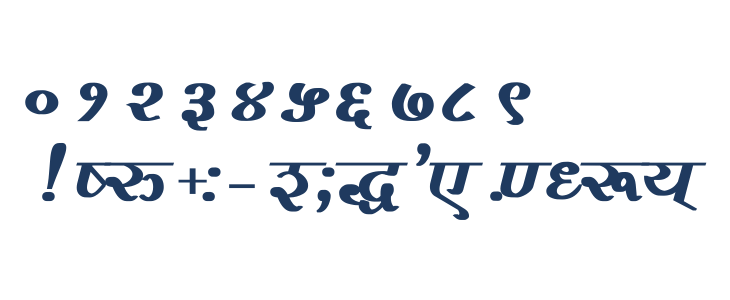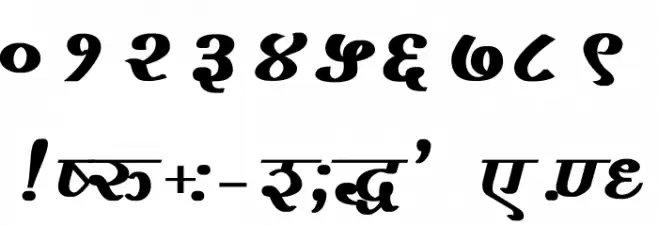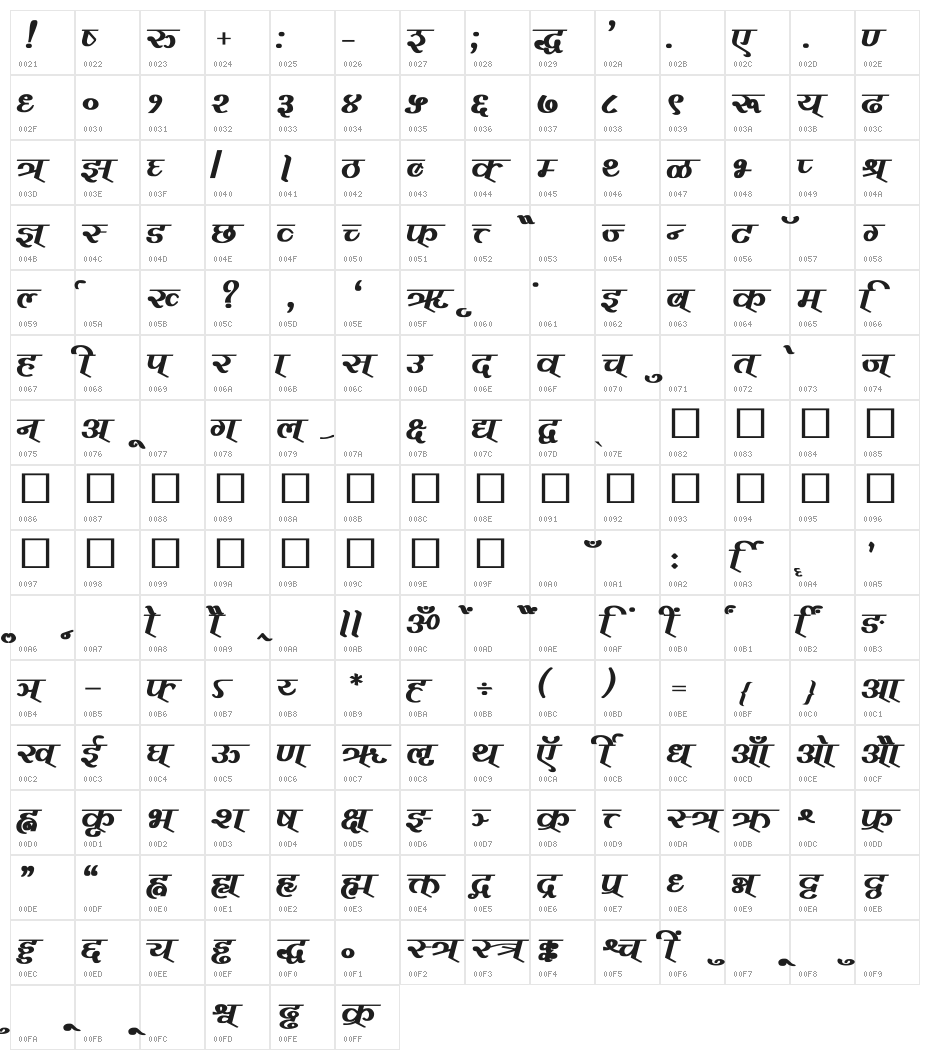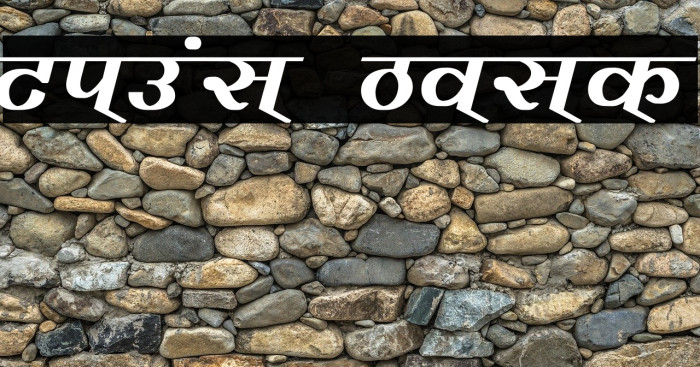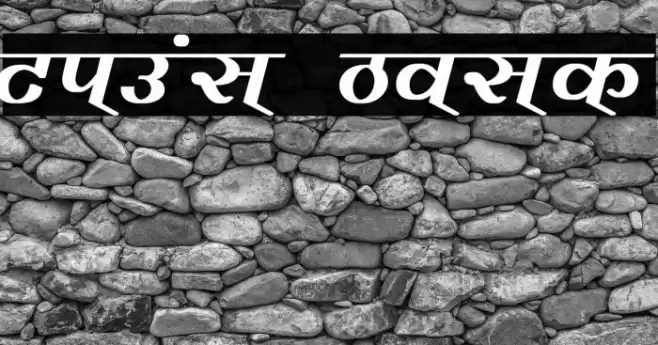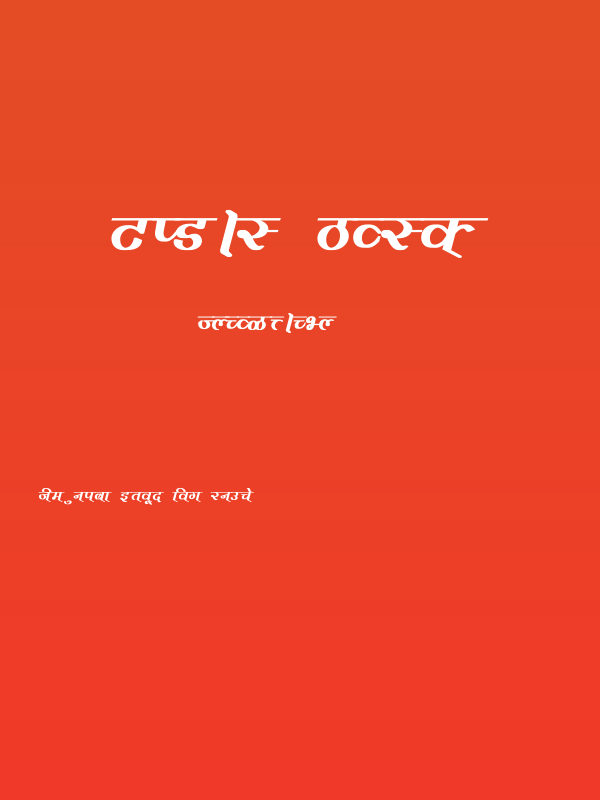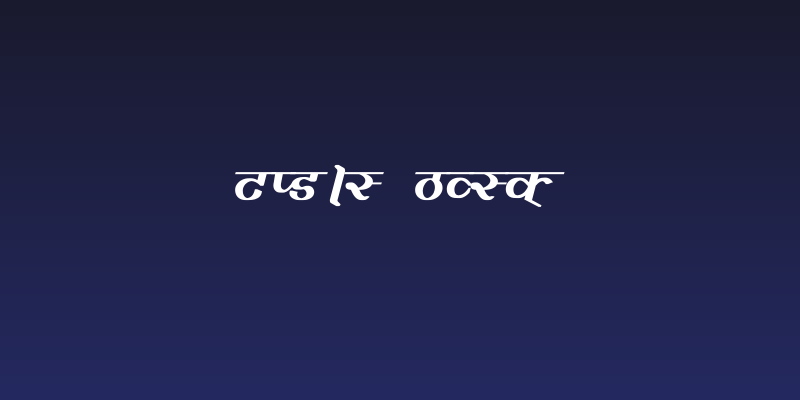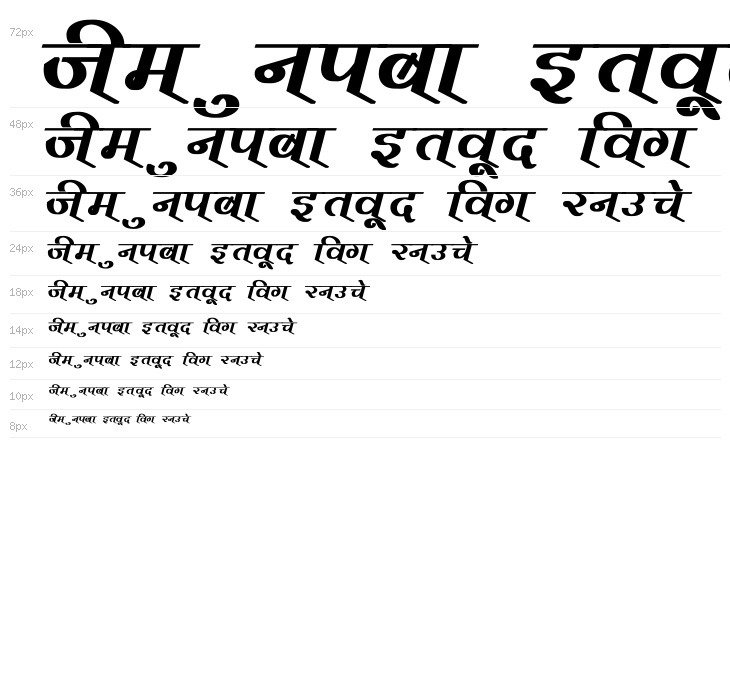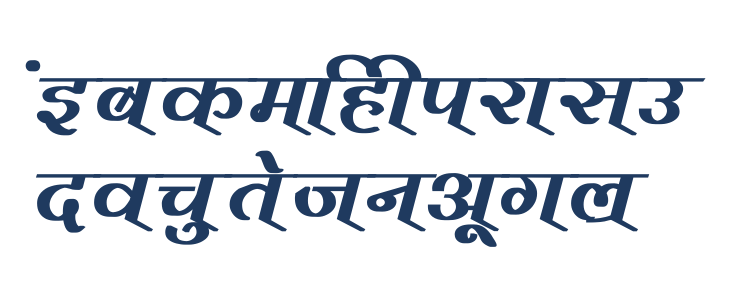
Vimal Bold Font
Vimal Bold Description
This font features a bold and dynamic style with a strong presence. The characters are designed with a distinct flair, showcasing a blend of traditional and modern elements. The strokes are thick and consistent, providing a sense of stability and confidence. The script is highly legible, making it suitable for various applications. The numerals and special characters maintain the same boldness, ensuring uniformity across all text. The overall design is both eye-catching and functional, making it ideal for impactful communication.
| Proposed Projects | Ideal for headlines, posters, branding materials, and any project requiring a strong visual impact. |